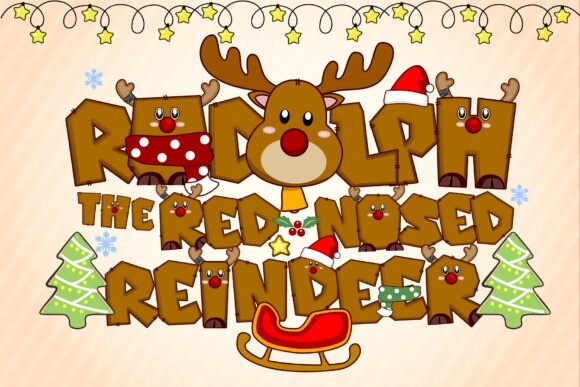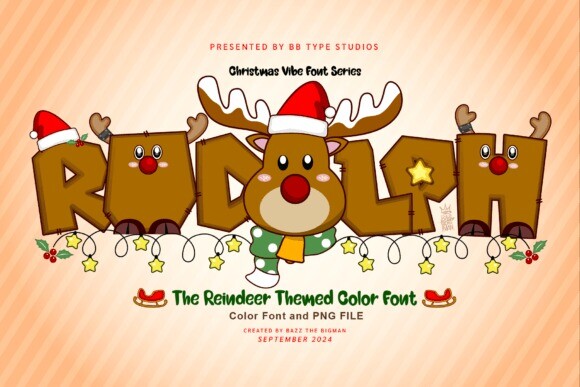
Rudolph Display Font
Rudolph Display is an enchanting and jubilant color font that serves as a perfect accompaniment for your Reindeer-beaming projects. Sporting a festive spirit, this font will effortlessly enrich your designs, apparel, crafts, and greeting cards, imbuing each piece with sheer holiday magic and charm. Let Rudolph carry you away to a realm of merry creativity, transforming your everyday designs into joy-filled artistry.